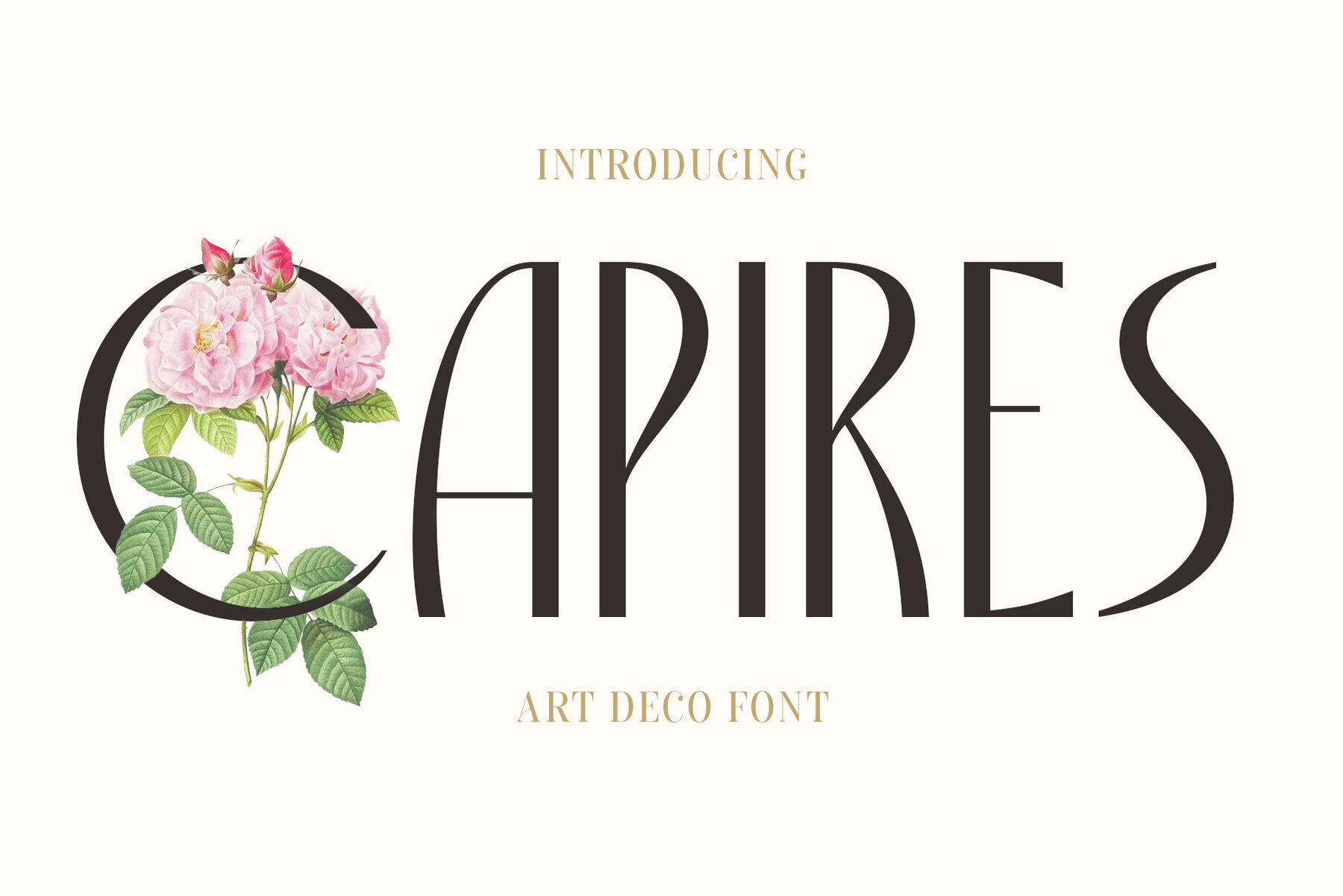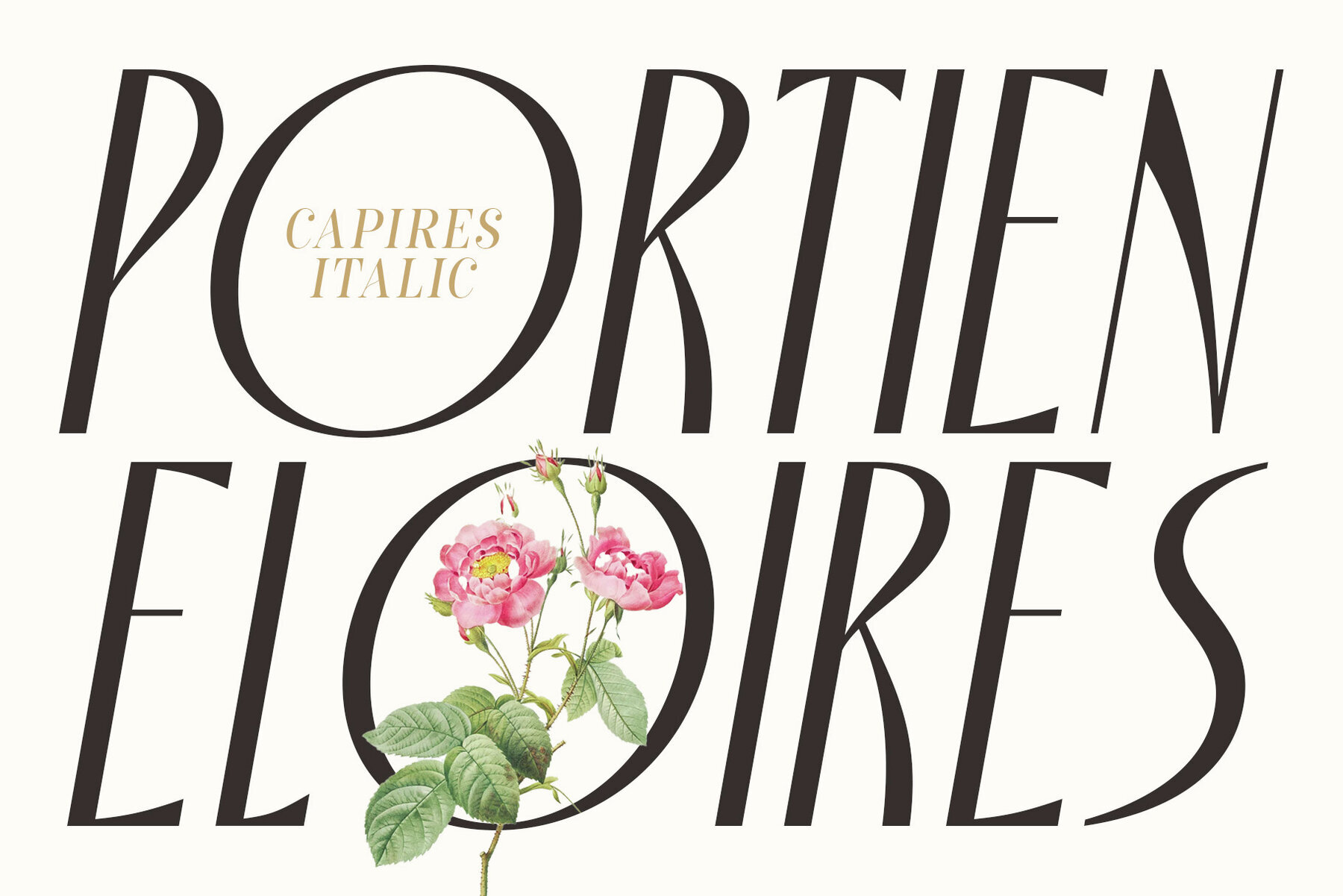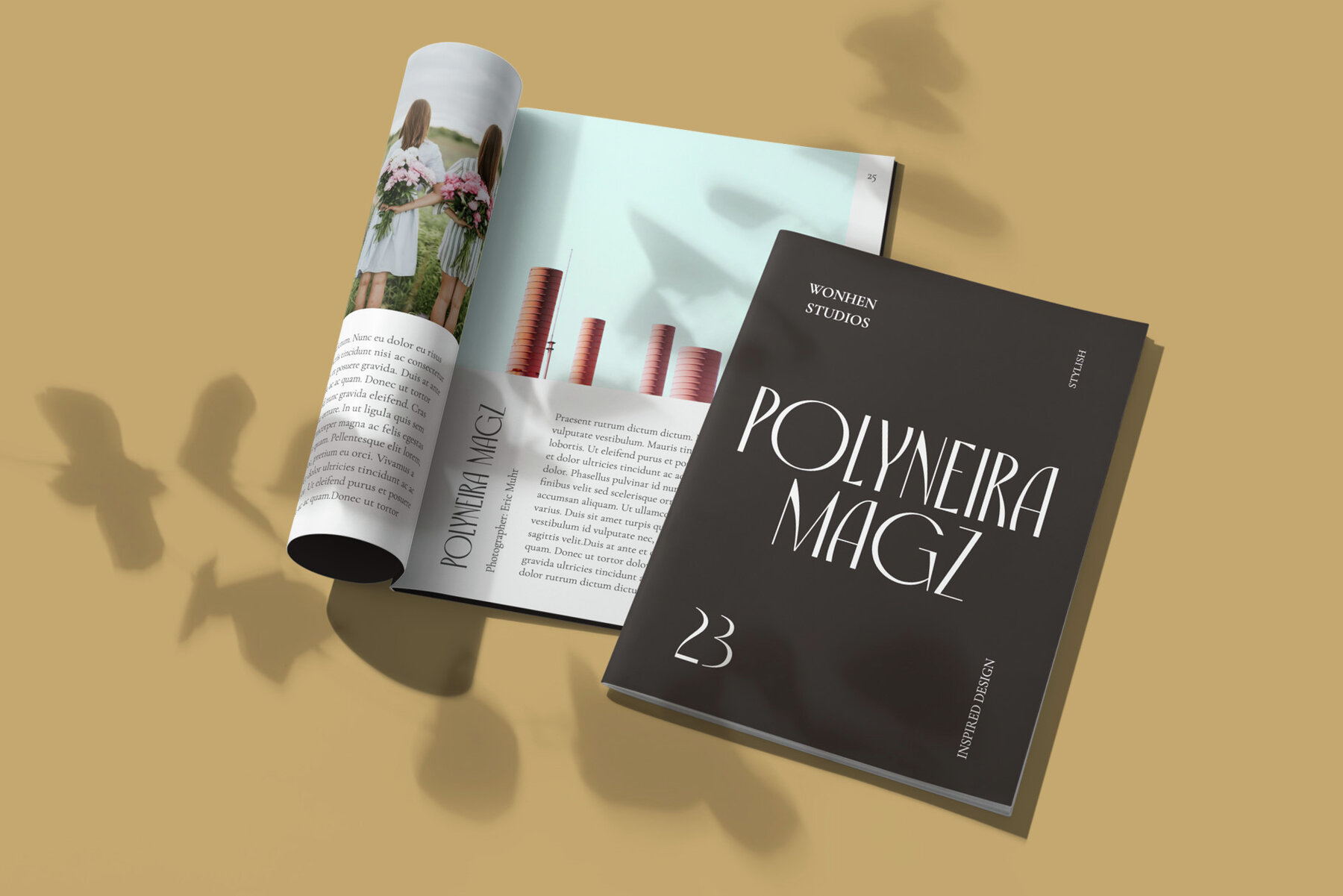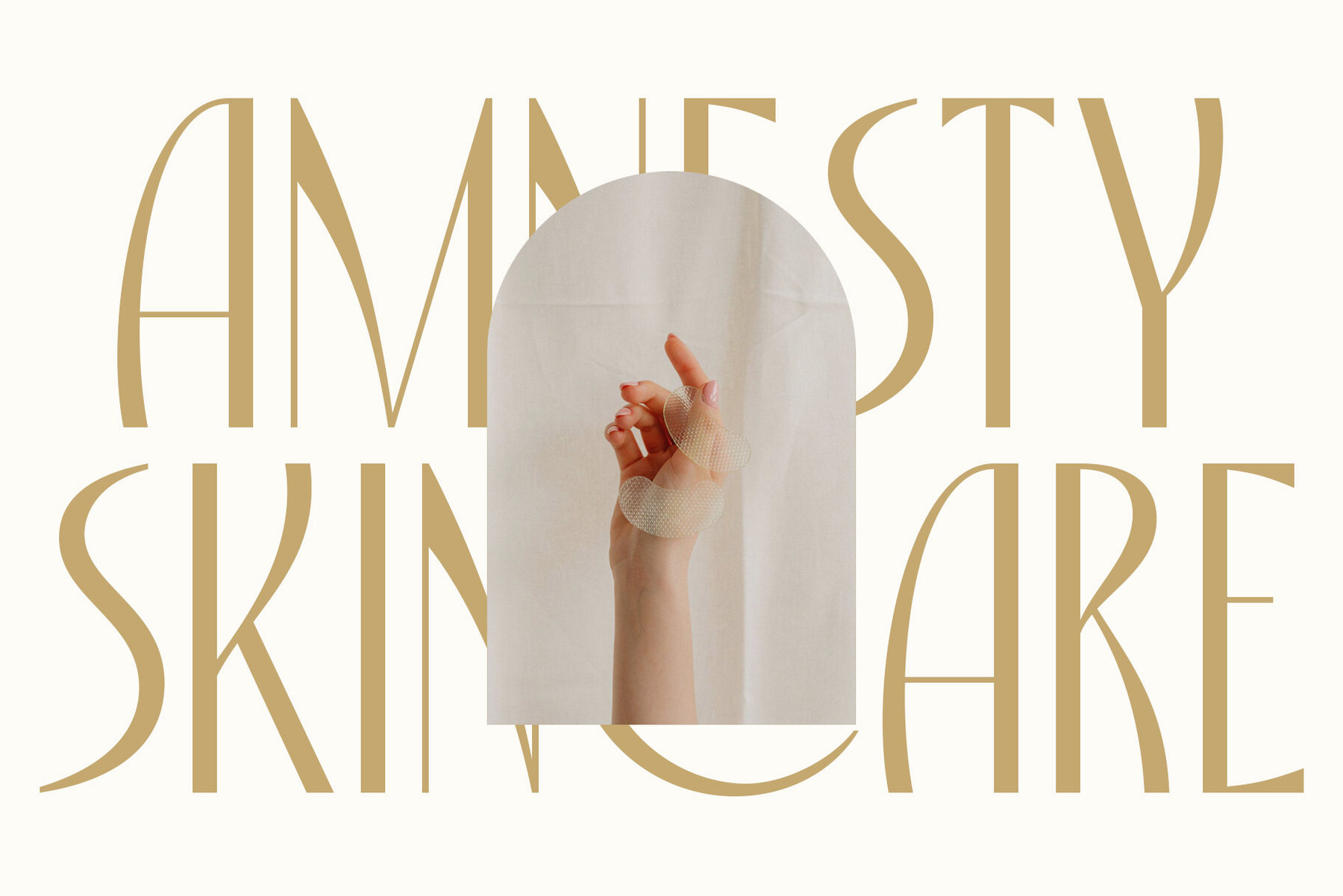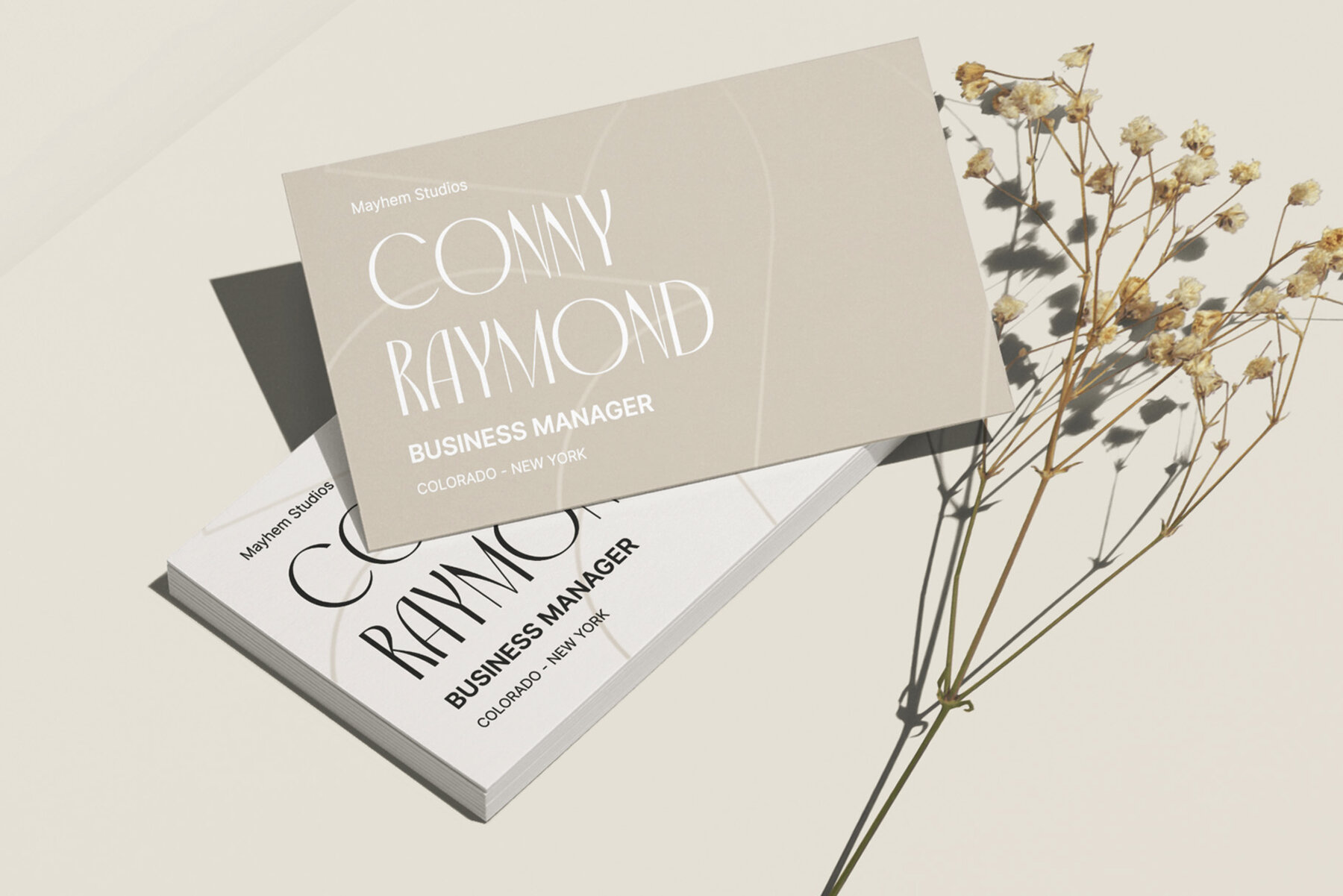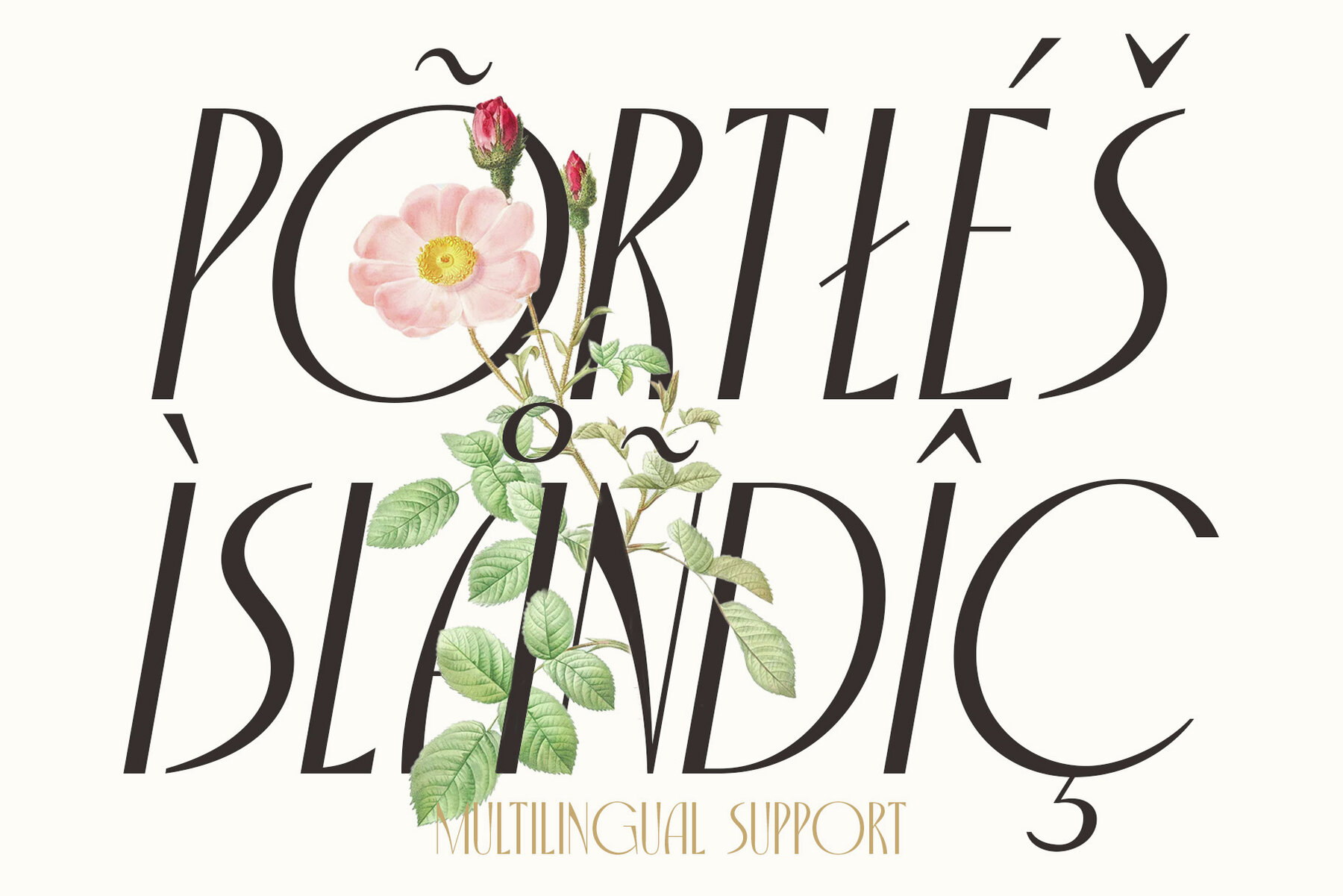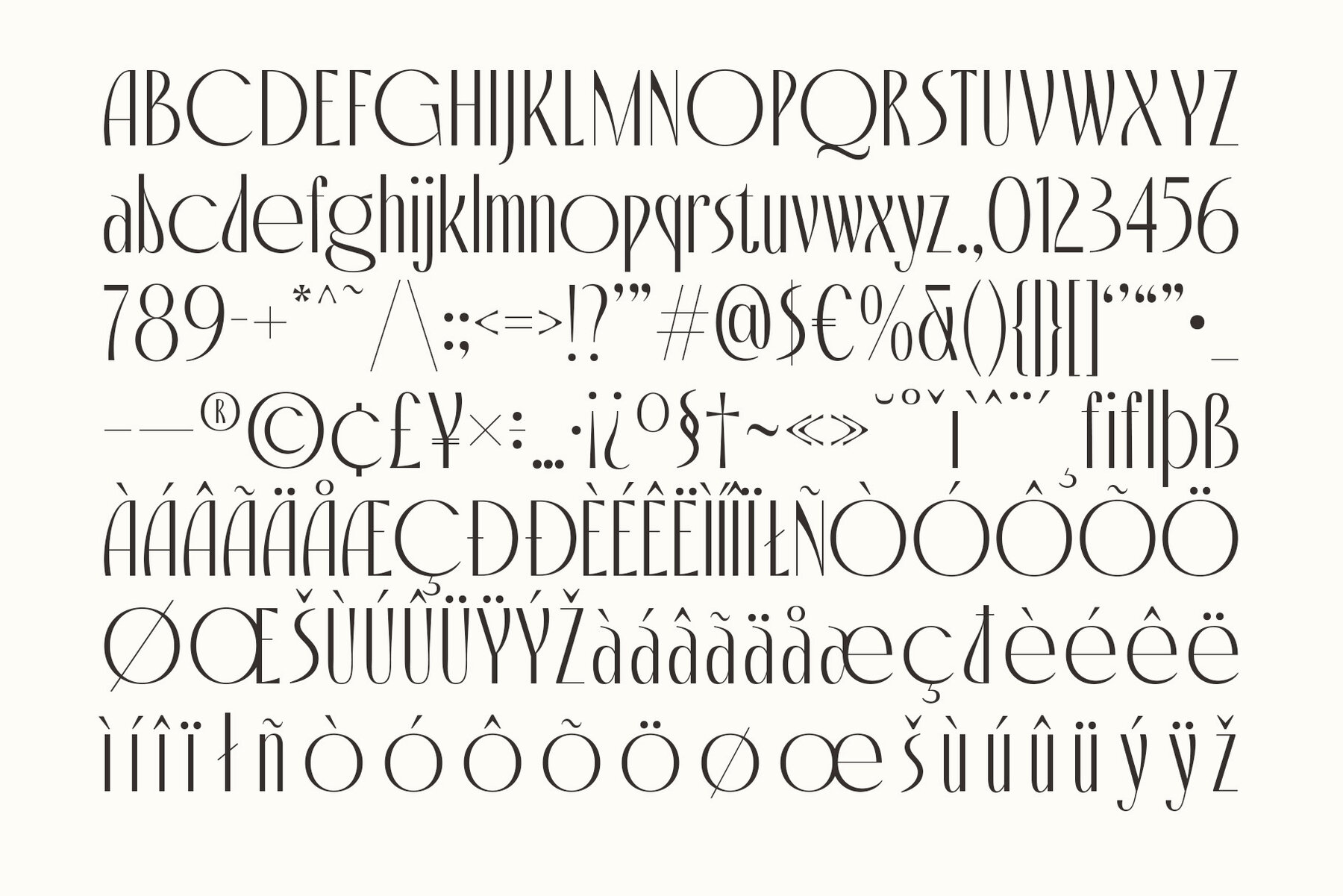
Capires Font
Immerse yourself in the enchanting universe of Craft Supply Co’s masterpiece, “Capires”. This exquisite typeface is a harmonious blend of two influential artistic epochs - Art Deco and Art Nouveau, presenting a revolutionary way to convey your messages or brand. The inspiring balance of geometry and simplicity in Capires taps into the rich artistic heritage of these sophisticated styles, activating spaces in the realm of lettering that have yet to be discovered by graphic designers and marketing firms alike. Craft Supply Co., renowned for their artisan craftsmanship, have breathed life into this typeface, perfectly incorporating both the iterable patterns of Art Deco and the organic fluidity of Art Nouveau into a contemporary script. Capires is expressive yet clear, offering a versatile tool for visual communication that transcends the barriers of language and culture. Elevate your design work to a realm where elegance is not just appreciated, but amplified. Features:Revitalize Your Designs with Capires – The Revolutionizing Art Deco Font